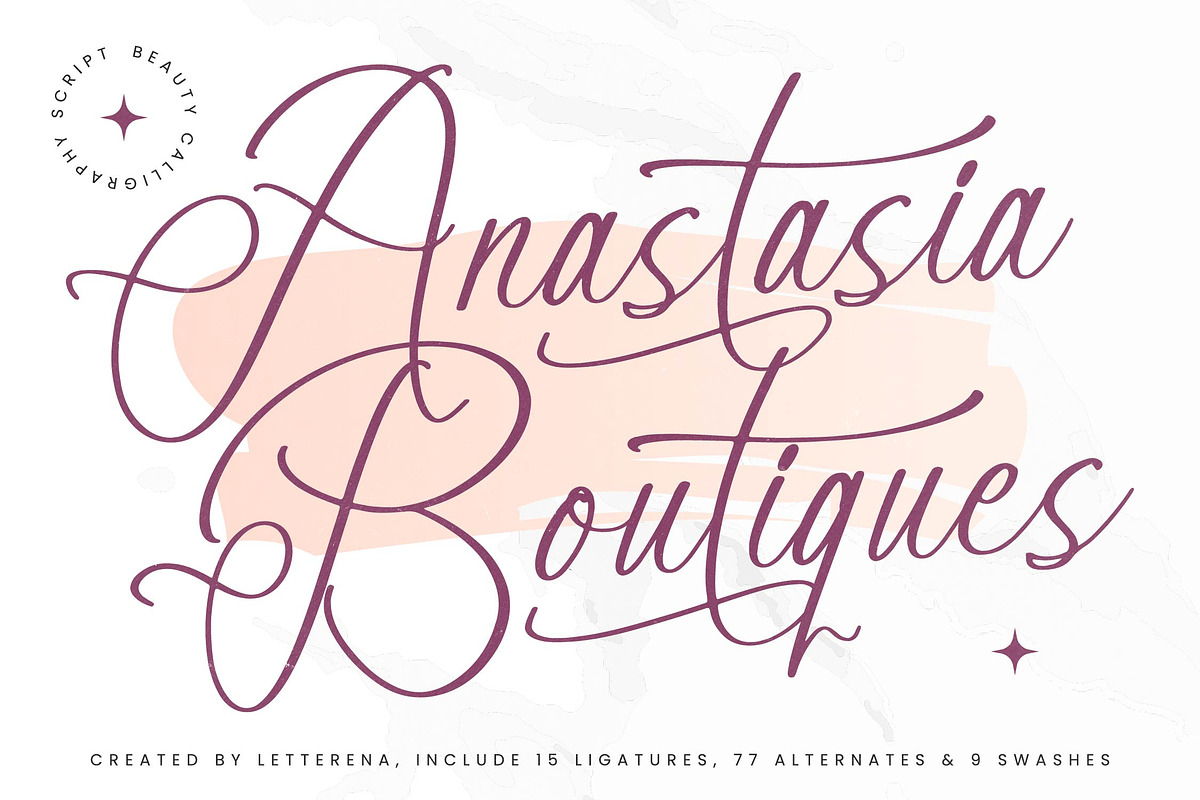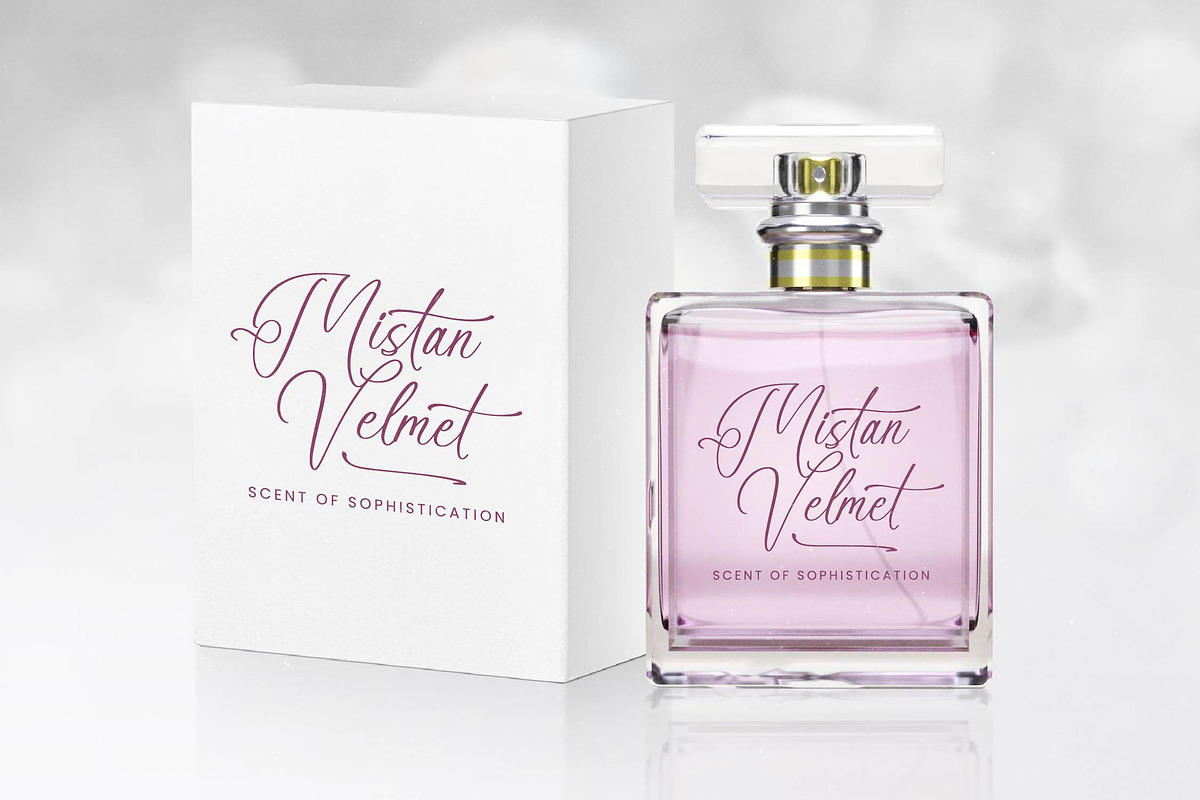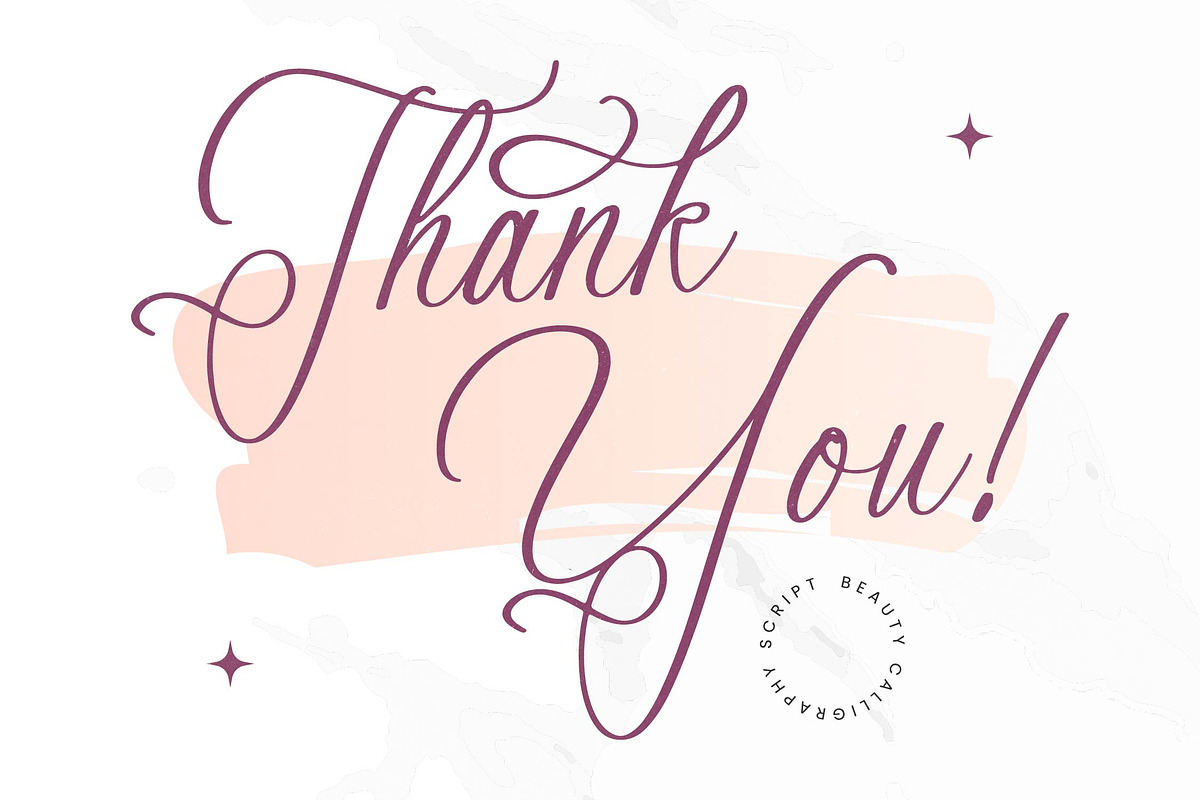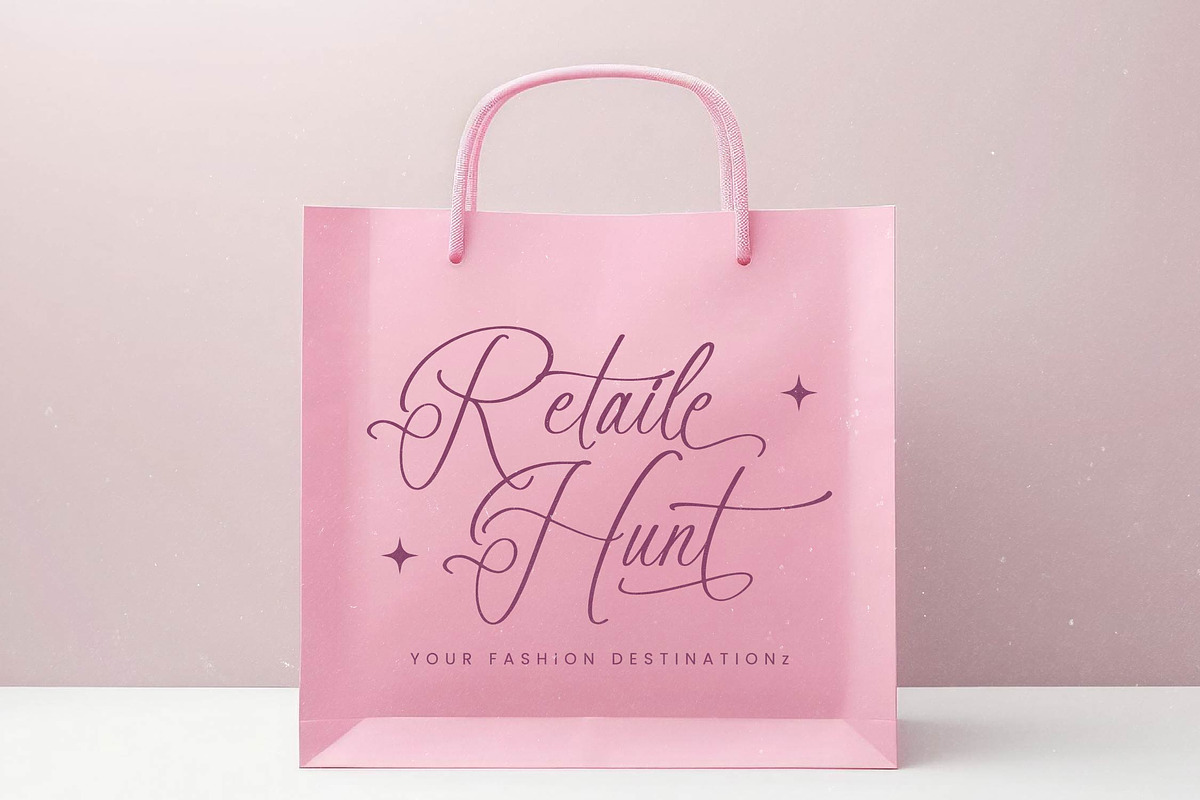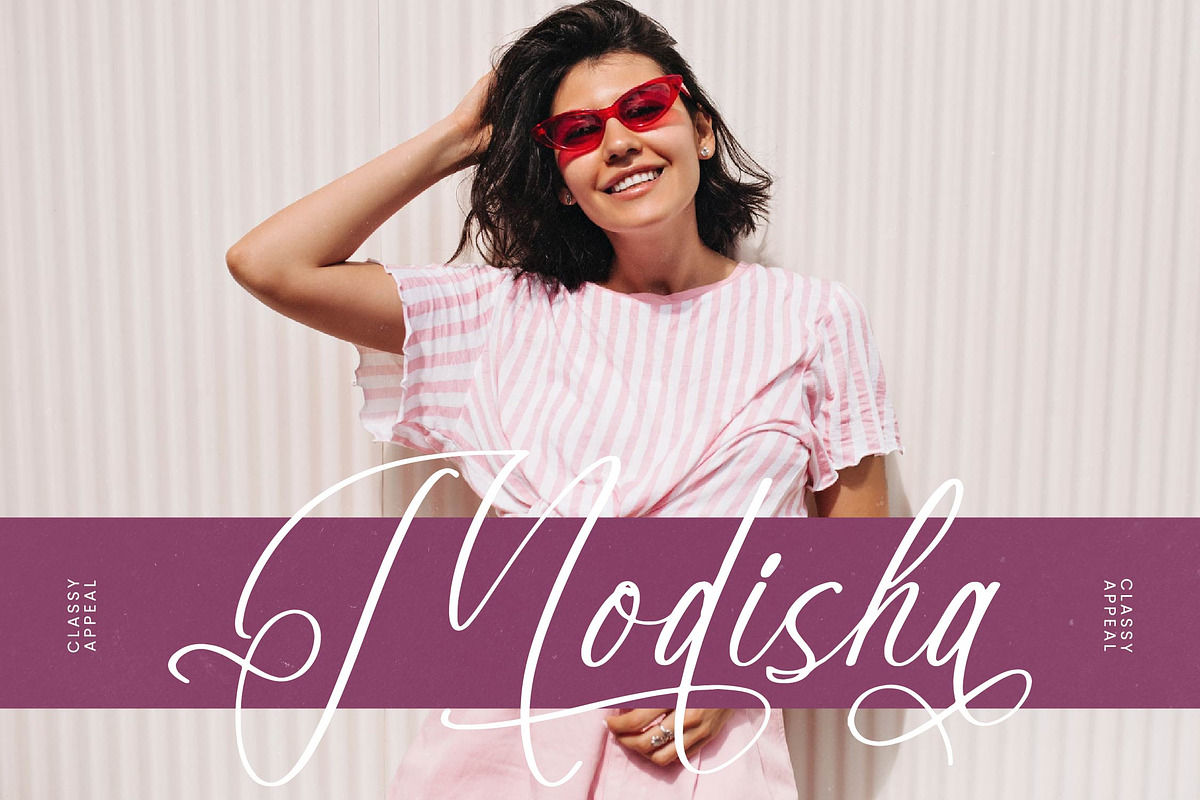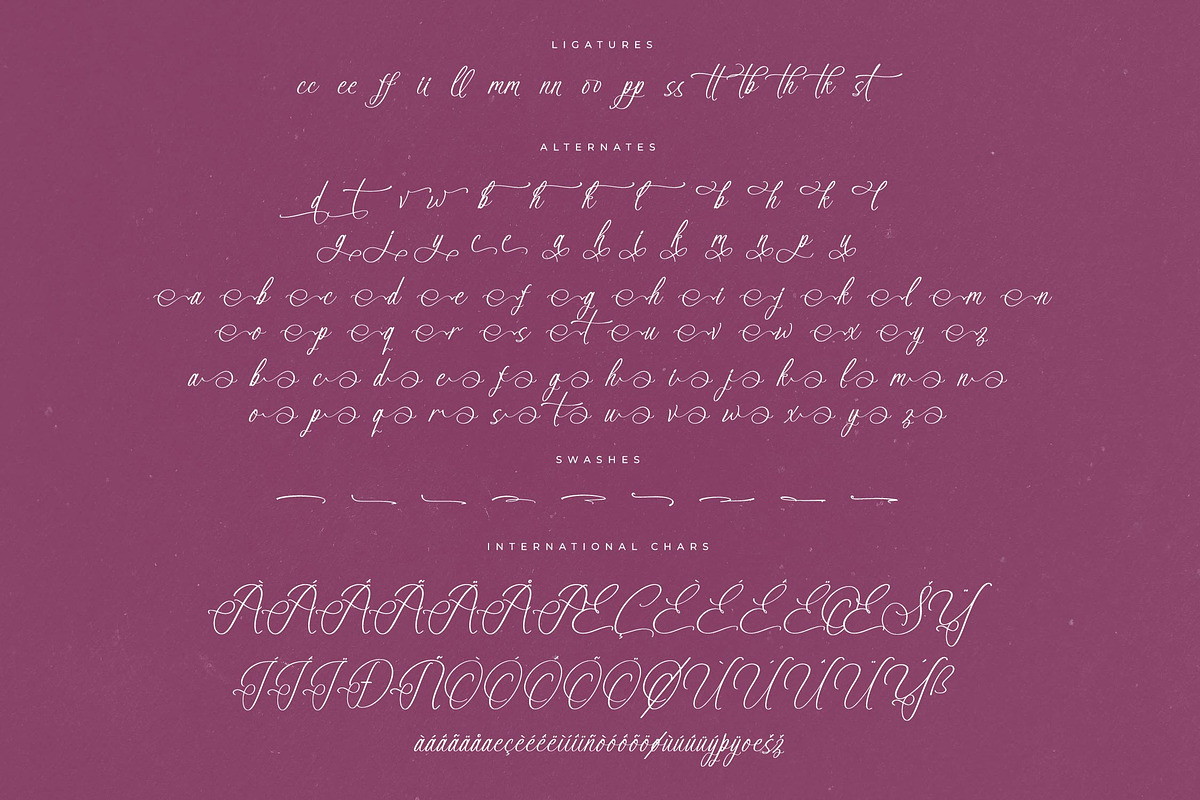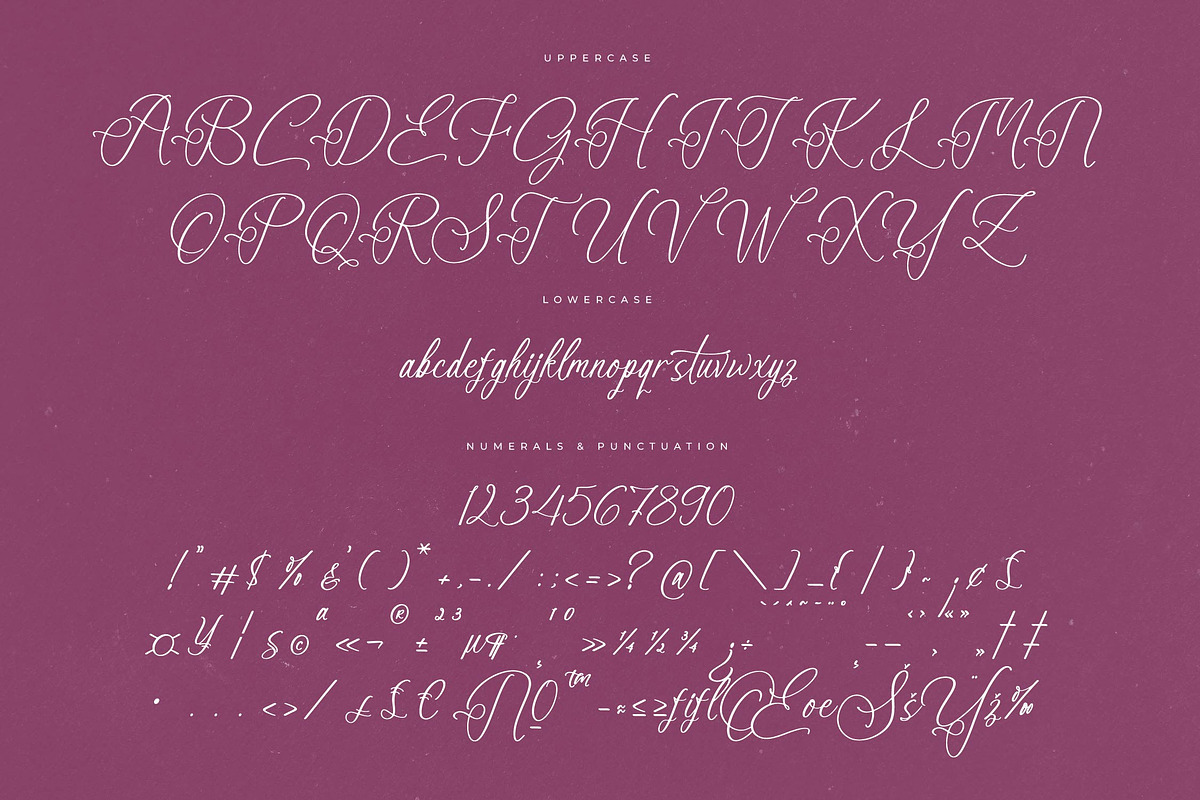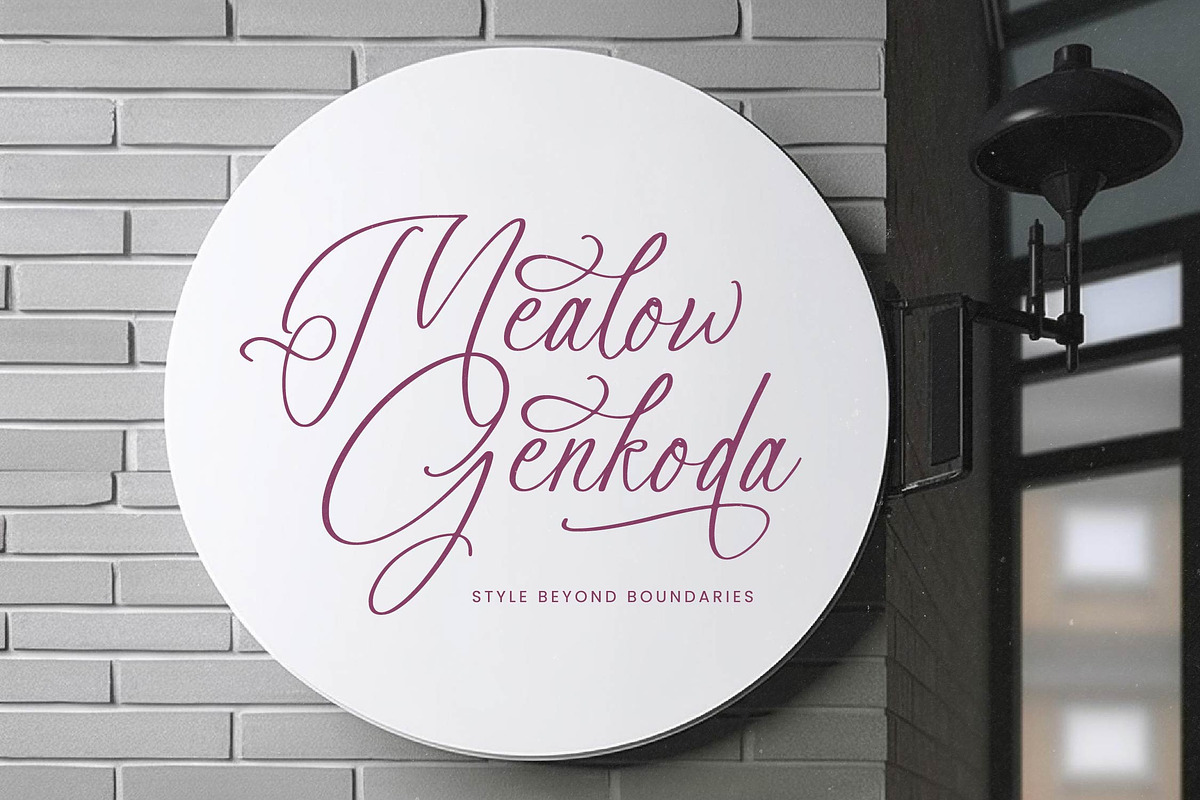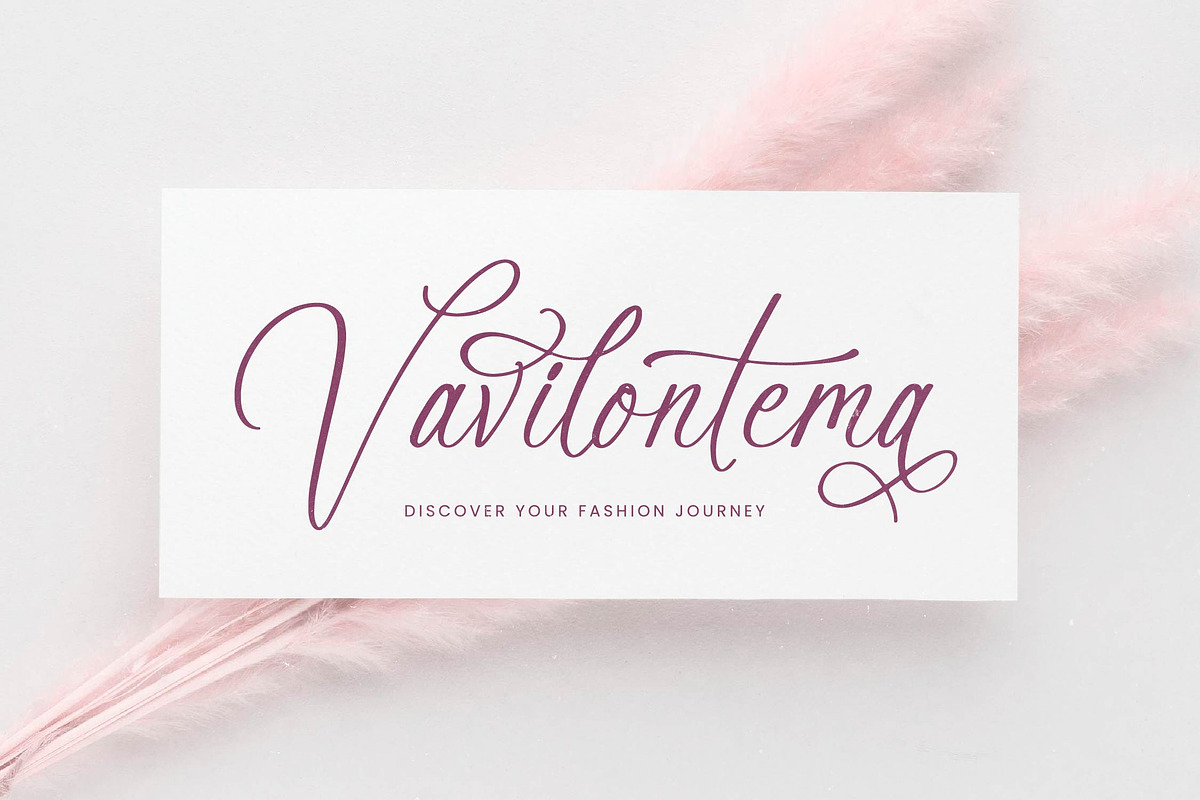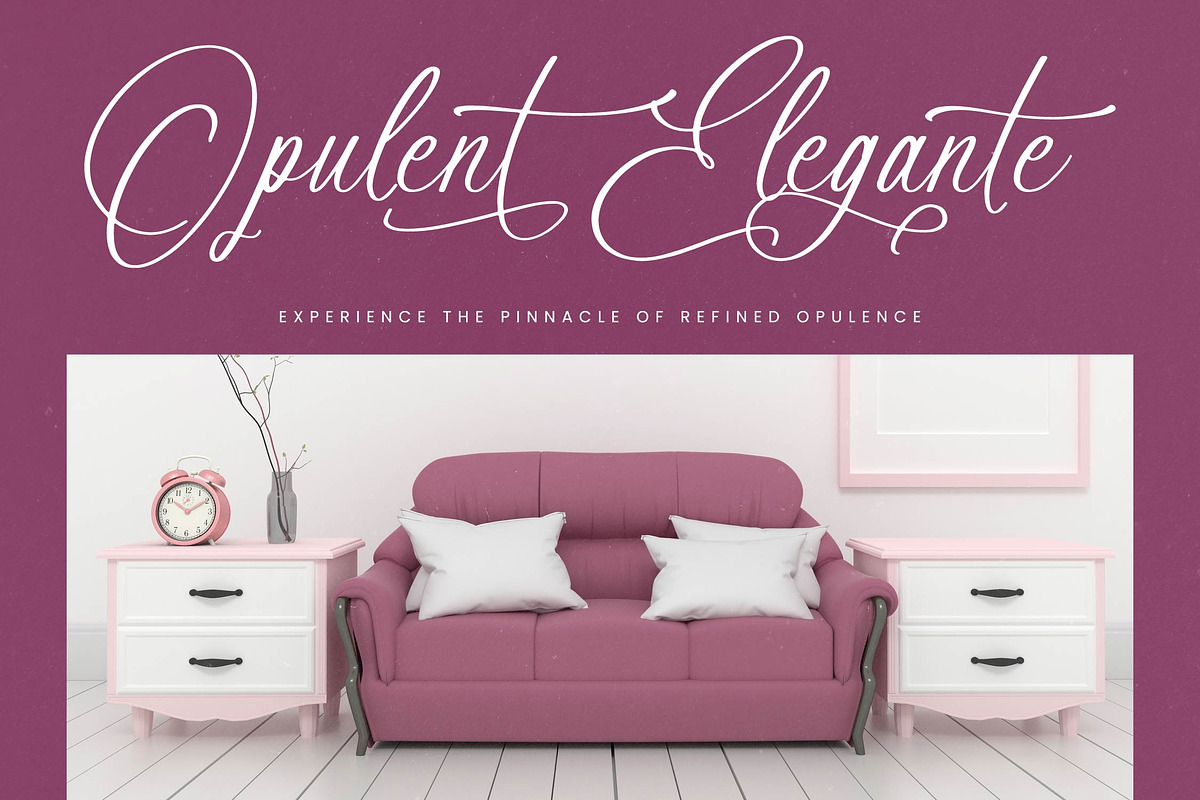
Anastasia Boutiques Beauty Script
Anastasia Boutiques – Beauty Calligraphy Script , from Letterena, is a Luxury Script font, suitable for any projects such as: logos, branding projects, homeware designs, product packaging, mugs, quotes, posters, shopping bags, t-shirts, book covers, name card, invitation cards, greeting cards, label, photography, watermark, special events, and all your other luxury and beautiful projects that need a Luxury Script taste.